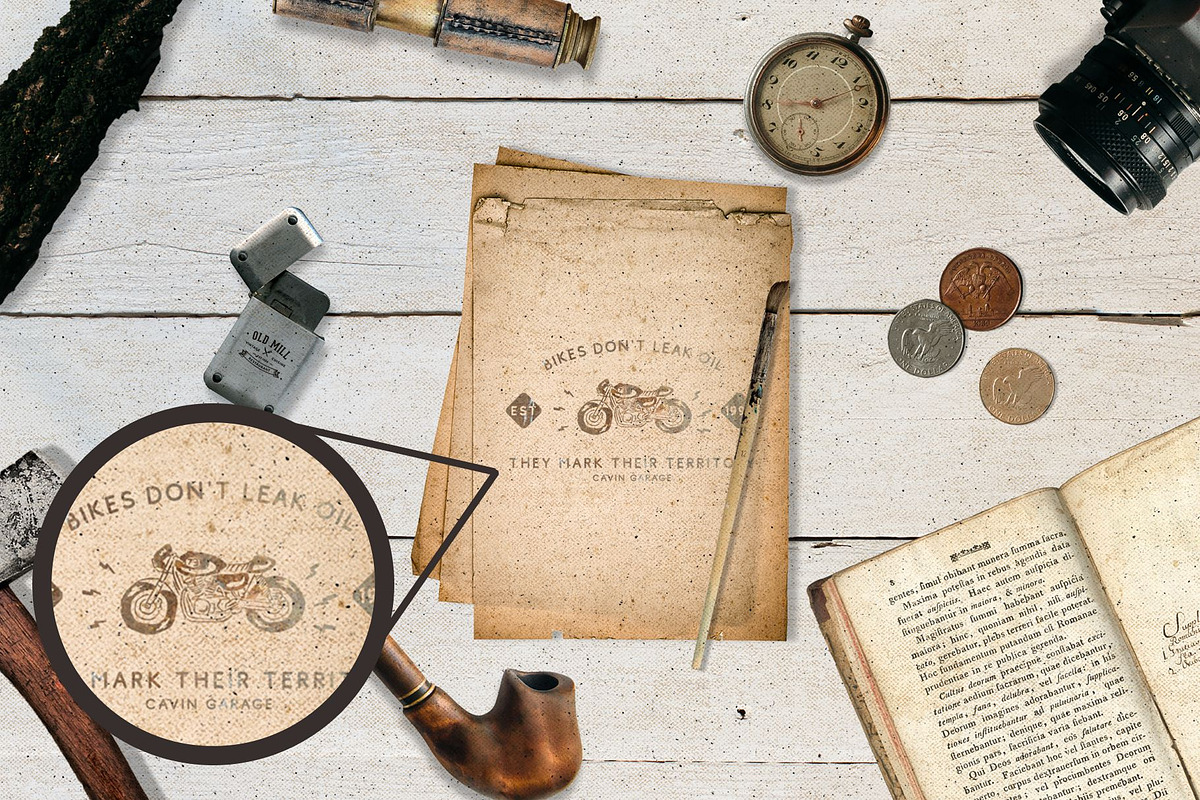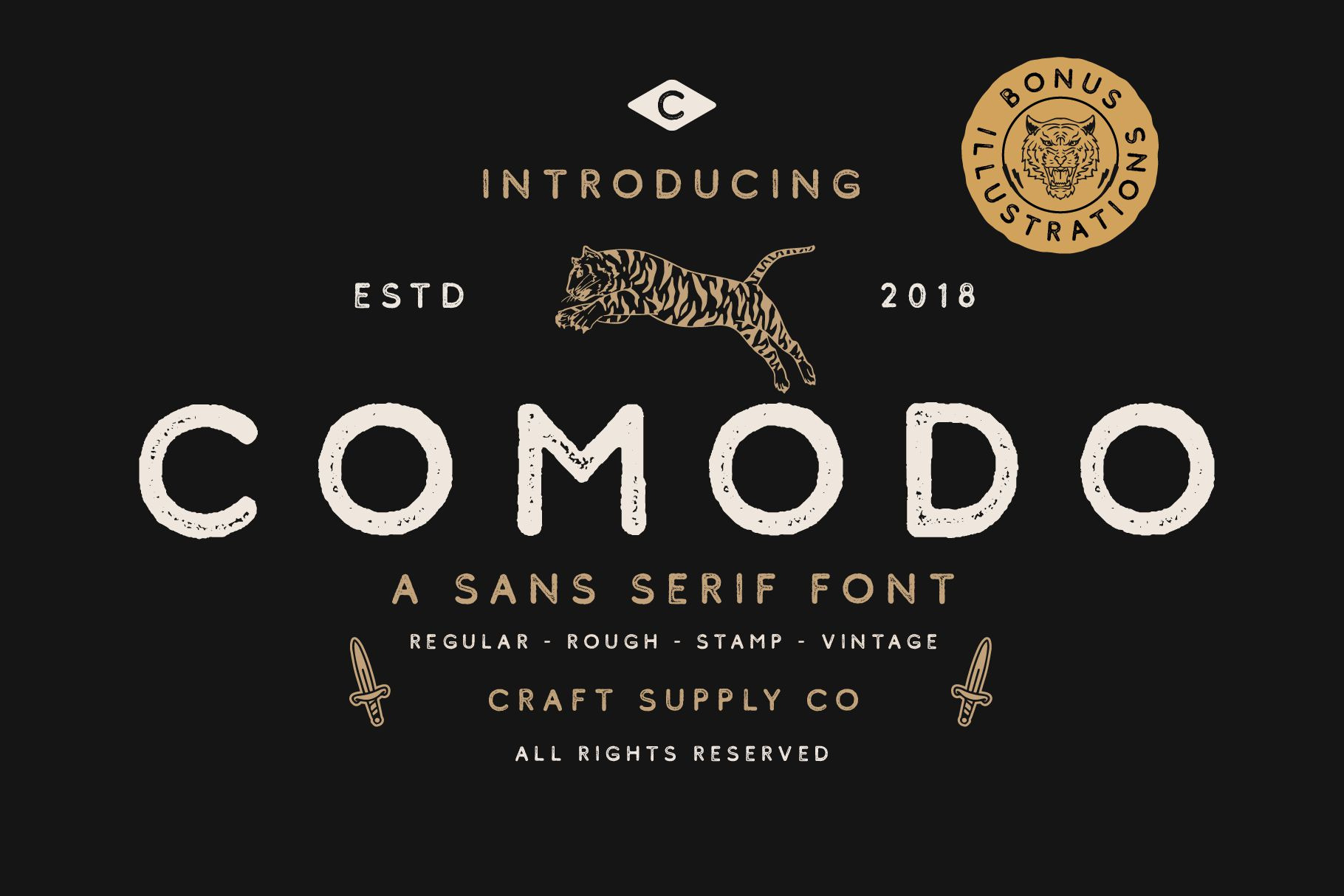
Comodo Font Family + Illustrations
Comodo Font Family + Illustrations includes 4 Style Fonts. It can be used to create almost all types of design projects like print materials. Just use your imagination and some graphic design set in Extras, your project will become more alive and look great than ever with one of the Comodo Font.
You want to make a greeting card or a package design, or even a brand identity, craft design, any DIY project, book title, wedding font, pop vintage design, retro design or any purpose to make your art / design project look pretty and trendy? Feel free to play with all the patterns and shape!
- Comodo Regular
- Comodo Rough
- Comodo Stamp
- Comodo Vintage
- Upper Case & Lowercase
- Standart Ligatures
- Accents (Multilingual characters) (AÀÁÂÃÄÅCÇDÐEÈÉÊËIÌÍÎÏNÑOØÒÓÔÕÖUÙÜÚÛWYÝŸỲŸÆŒßÞ)